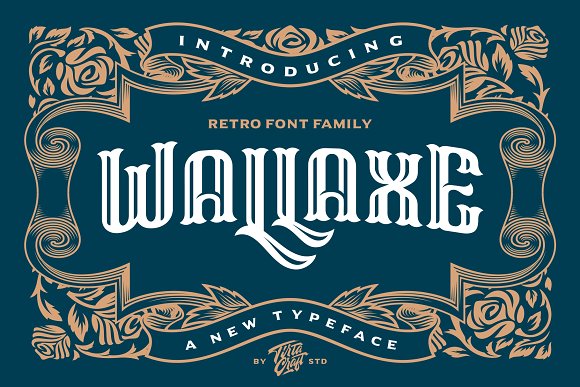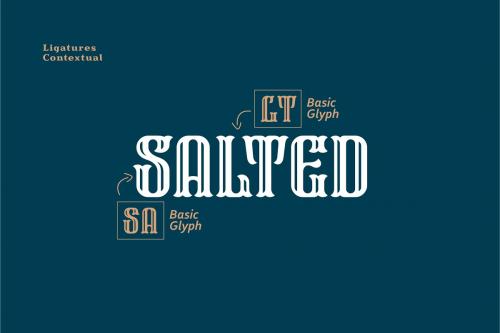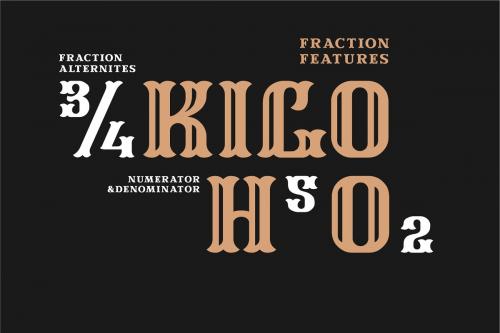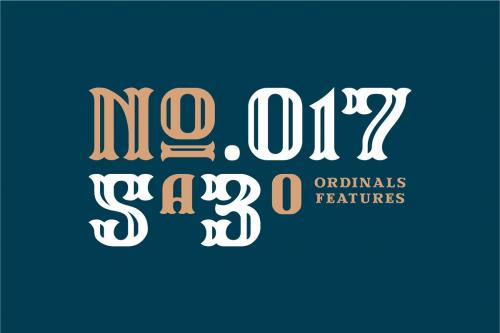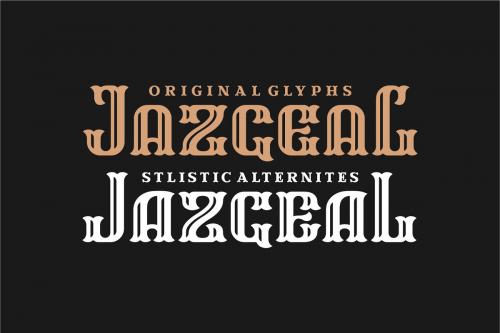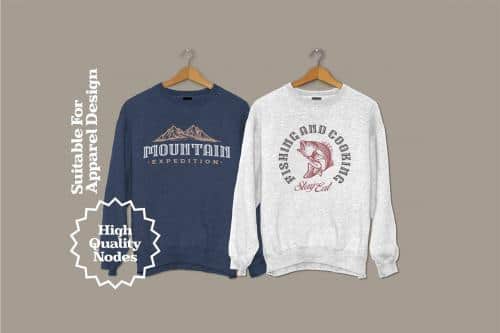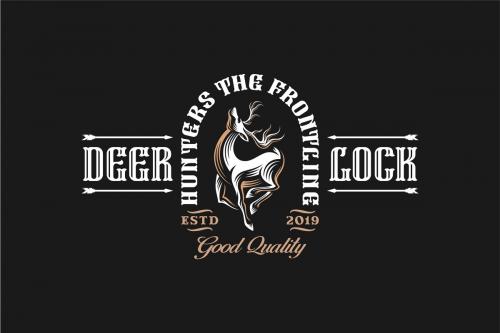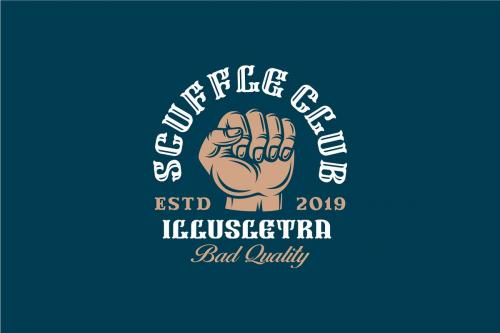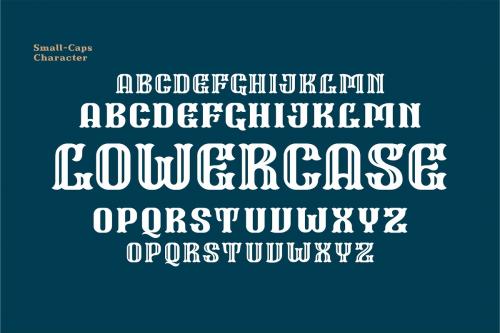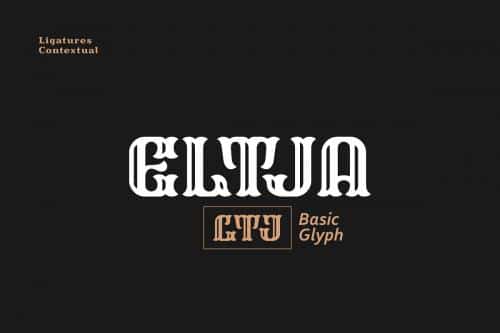
WallAxe Typeface is the first commercial typeface from Tirta Craft. With classic, elegant, vintage, luxury, and clean feel. Come with 2 styles regular and inline style.
WallAxe Typeface is suitable typeface for various purposes like logotype, signage, label, poster, dropcap, titles, letterhead, book cover and etc.
- Designer: Farhan T. Sudiya